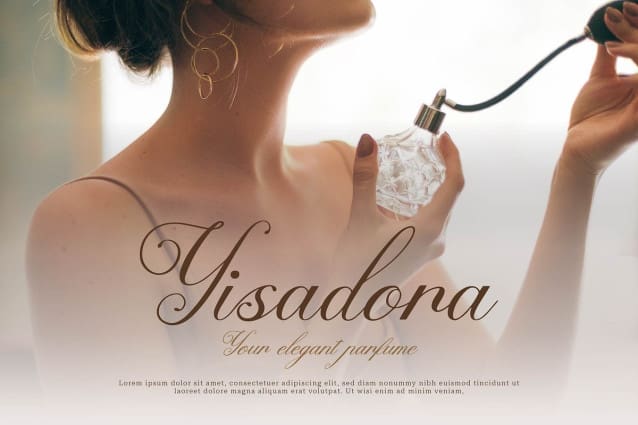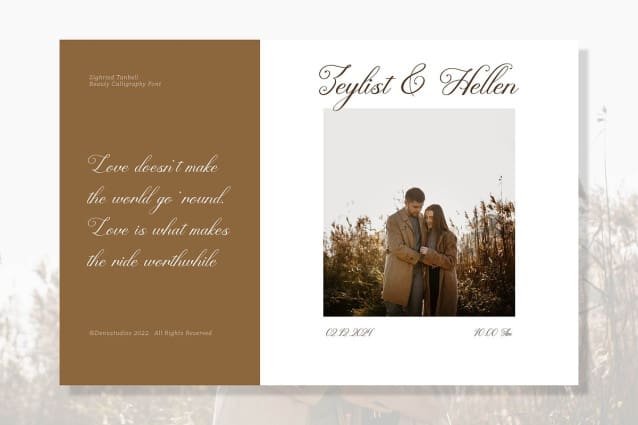
Bighried Ranbell Font
Bighried Ranbell Font – Calligraphy Script , from Denustudios, is a Calligraphy Script font, suitable for any projects such as: logos, branding projects, homeware designs, product packaging, mugs, quotes, posters, shopping bags, t-shirts, book covers, name card, invitation cards, greeting cards, label, photography, watermark, special events, and all your other luxury and beautiful projects that need a Calligraphy Script taste.